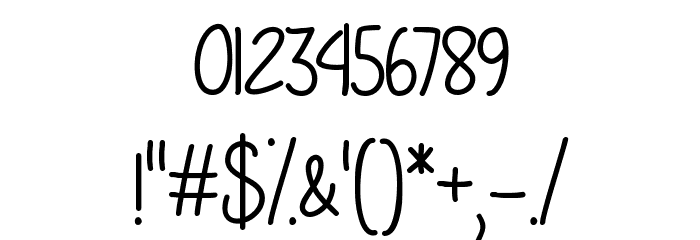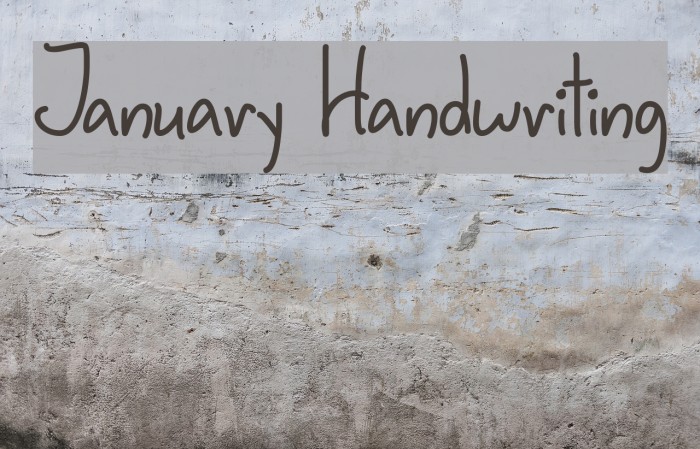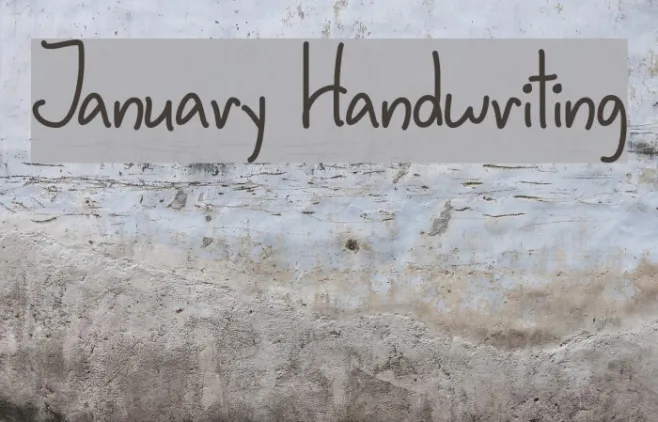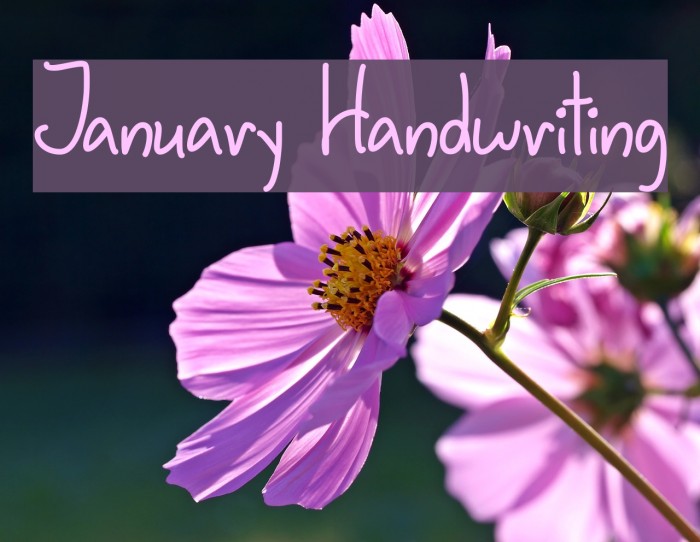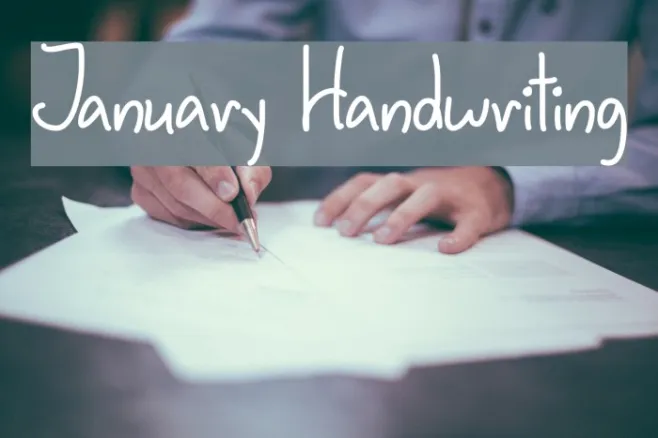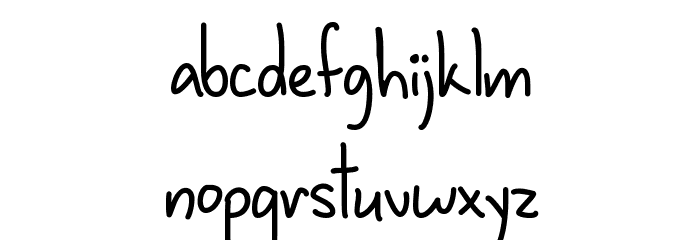
January Handwriting Font
January Handwriting Description
This font exudes a casual and playful handwritten style, characterized by its smooth, flowing lines and slightly irregular letterforms that mimic natural handwriting. The uppercase letters are tall and slightly narrow, while the lowercase letters maintain a consistent height, adding to the font's legibility. The numbers and special characters are designed to complement the alphabet, maintaining the same casual and friendly aesthetic. This font's overall appearance is approachable and informal, making it suitable for projects that require a personal touch.
| Overall Style | Casual, Playful |
| Use Case | Headlines, Informal text, Personal projects |
| Proposed Projects | Ideal for greeting cards, personal notes, invitations, and informal branding projects. |